The best PowerPoint fonts
Which font styles should you use for your slideshow? We’ll explain the font types, best PowerPoint fonts, and suggestions for choosing the right fonts.
Having trouble deciding on the best font style for your PowerPoint presentation? Along with matching your brand, style, and mission, you want a font that’s easy to read and attractive at the same time.
We’ll explain each available font type, the best fonts to use in PowerPoint, and some helpful suggestions for picking a font for your slideshow.
Types of font styles
Before you review the top PowerPoint fonts, it’s important to learn about the different types of fonts for those that best match your presentation. You’ll find a variety of font types available in Microsoft PowerPoint.
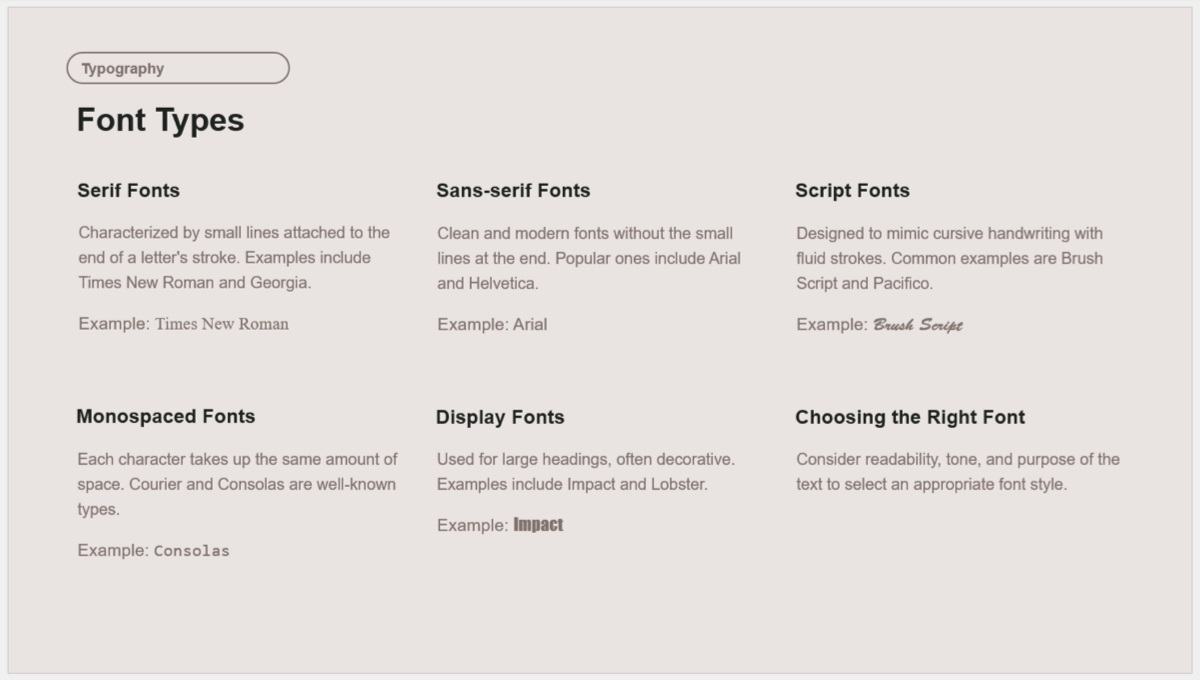
Serif fonts
One of the most common types is the serif font. You’ll notice that the letters for this font have small lines or strokes projecting from the edges giving them a traditional appearance. This makes the font ideal for printed pieces because distinguishing the letters from one another is easy.
Common serif fonts:
- Times New Roman
- Georgia
- Garamond
- Cambria
- Palatino Linotype
Sans-serif fonts
Another common type is the sans-serif font. You’ll see these letters without (“sans” in French) serifs or projections giving them a modern appearance. This makes the font type clearer to read in digital media because the lines and edges are distinct.
Common sans-serif fonts:
- Arial
- Tahoma
- Roboto
- Verdana
- Calibri
Script fonts
For a font with a handwritten appearance, you’ll see script fonts. These appear as a cursive or calligraphy style. While these fonts are elegant and attractive, they can be difficult to read in large quantities, so limiting this font to a word or phrase is usually best.
Common script fonts:
- Brush Script
- Pacifico
- French Script
- Monotype Corsiva
- Lucida Calligraphy
Monospaced fonts
Monospaced fonts resemble sans-serif fonts in their clean lines. The difference is that the letters are evenly spaced horizontally, so each letter uses the same amount of room. You’ll often see this type used for code snippets.
Common monospaced fonts:
- Courier
- Consolas
- Lucida Console
- Lucida Sans Typewriter
- Menlo
Display fonts
One more font type to check out is the display font. This style can include or even combine the above types and is considered decorative. It is designed for large copy like titles, headings, or pull quotes on posters, logos, and book covers.
Common display fonts:
- Bauhaus
- Broadway
- Cooper Black
- Curlz
- Jokerman
Best fonts for PowerPoint
With the above font types in mind, let’s look at several of the best PowerPoint fonts for your next presentation. We’ve included a bit of a mix to help you find the perfect style for your brand and mission.
Tahoma
Tahoma is a sans-serif font created by Matthew Carter that’s very close in appearance to Arial. As Microsoft mentions, “it was created to address the challenges of on-screen display” and because the font can be scaled and rotated easily, it’s a solid choice for any presentation.
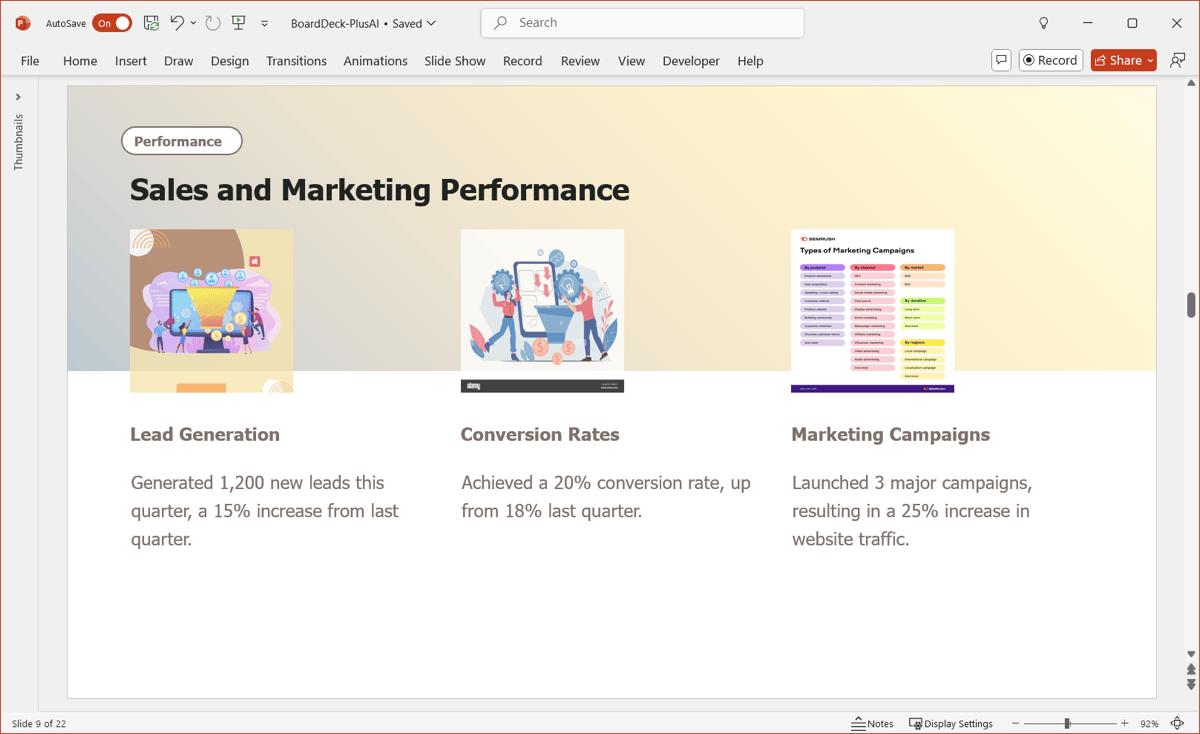
Calibri
Calibri is another popular pick and is still the default font for blank presentations in some versions of PowerPoint. This is also a sans-serif font with slightly rounded edges, giving it a warm and soft appearance.
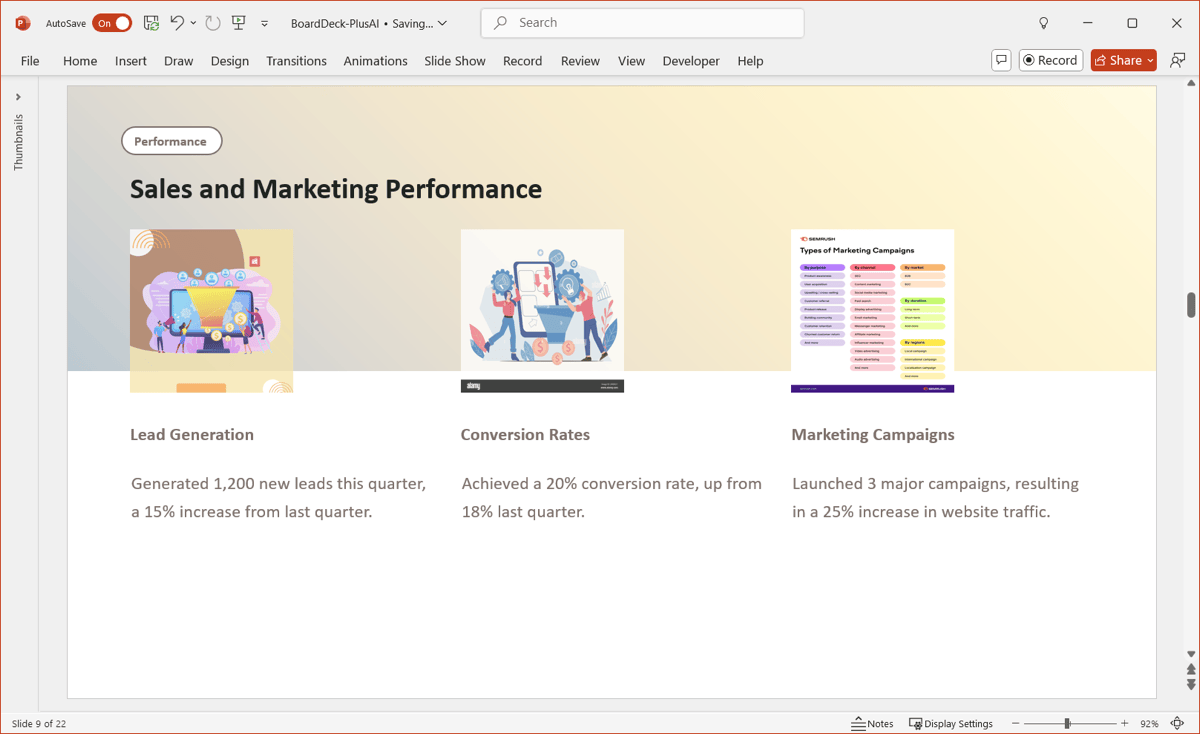
Verdana
Maybe you like the sans-serif font type but want something a bit larger without taking up more room. Verdana is a good choice. The letters appear “spread out” more than a font like Arial, without taking up extra slide space. And the font type still provides clean lines and edges.
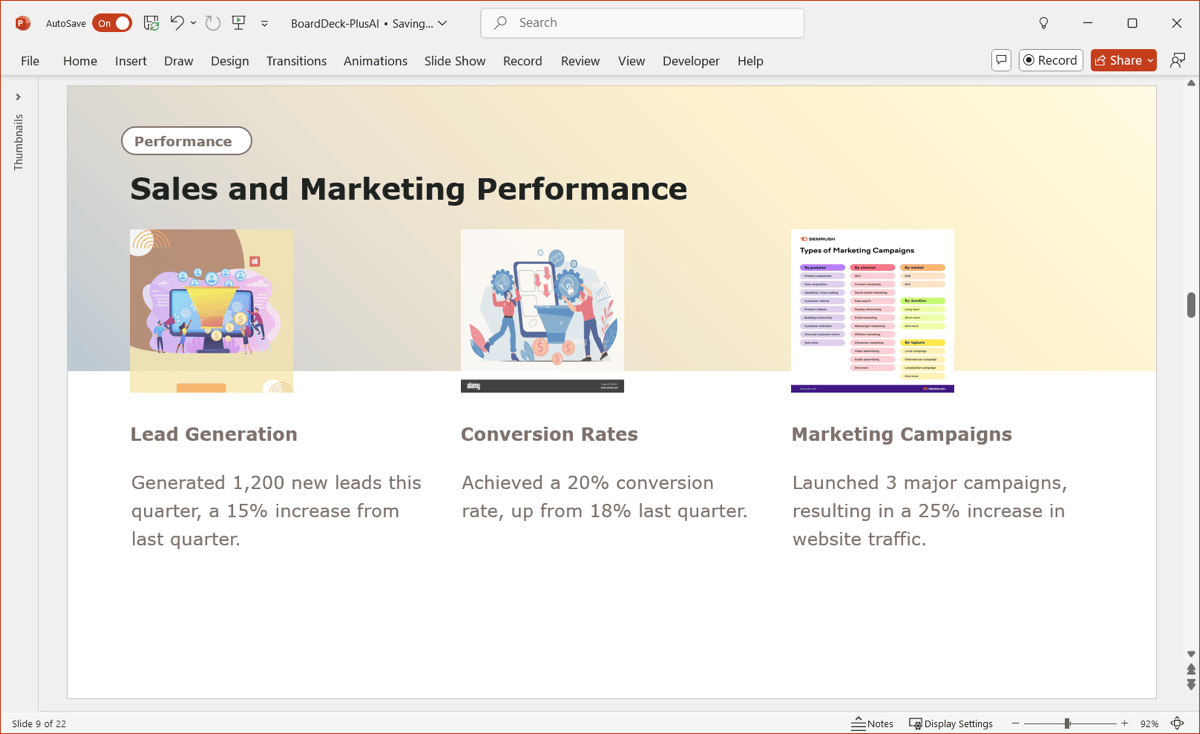
Georgia
If a serif font matches your brand and you want to add some contrast, consider using Georgia for titles and headings. While similar to Times New Roman, Georgia has a somewhat more modern appearance while still maintaining the traditional feel of serif fonts. Georgia also works well for emphasis formatting like italics and bold.
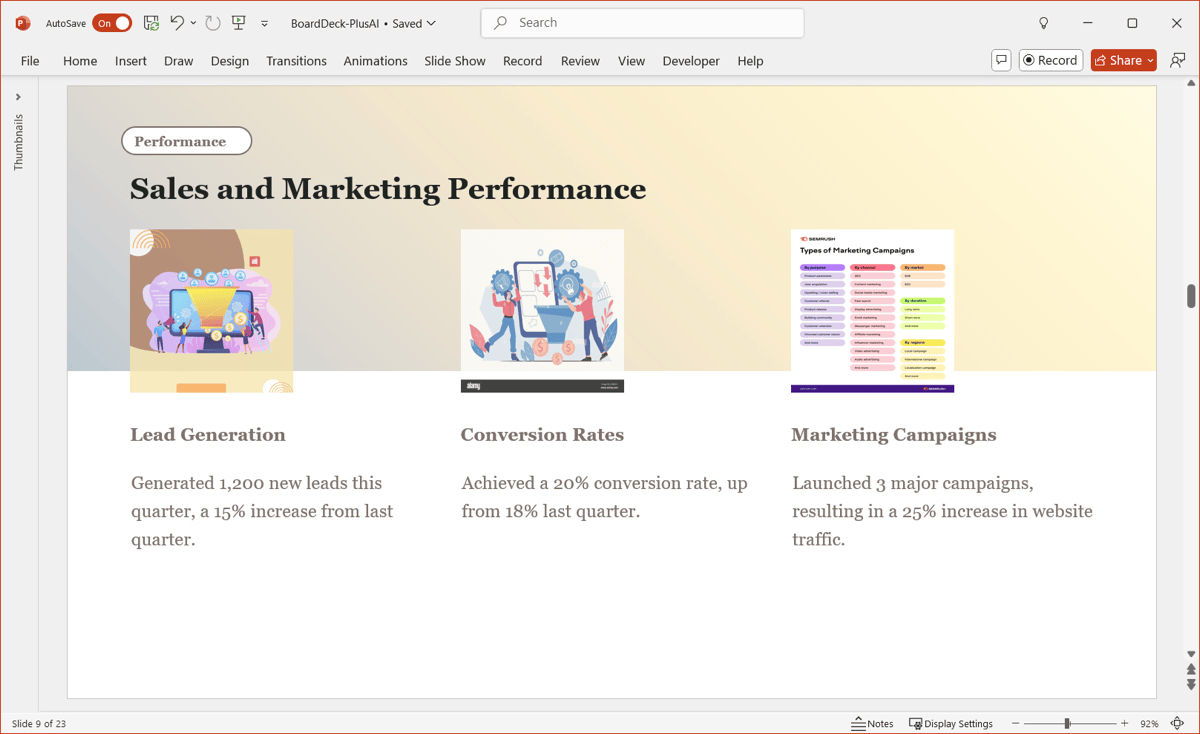
Monotype Corsiva
Looking for a script font for certain portions of text like the “welcome” or “thank you” slide? Monotype Corsiva is an elegant option that’s still easy to read. While it provides the slanted handwritten feel, the letters don’t flow into each other like many script fonts.
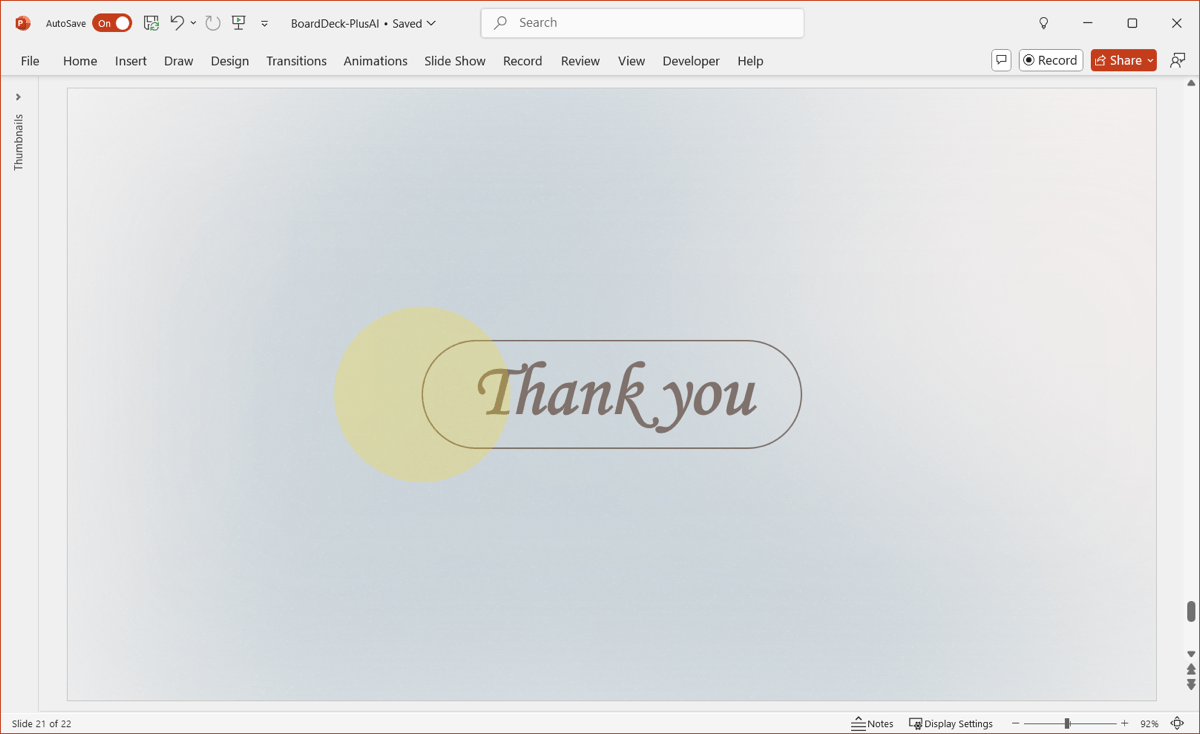
Tips for selecting PowerPoint fonts
When you’re ready to start selecting the fonts for your presentation, here are a few suggestions to keep in mind.
Pick fonts that are easy to read. You don’t want your audience struggling to read or even squinting at your slides to distinguish the letters and words in your content.
Limit the number of font styles. While using different font types works well for titles, headings, and body text, if you use too many, it can be distracting to the viewer. It may also invoke the feeling of an unorganized presentation or one that was rushed during the creation process.